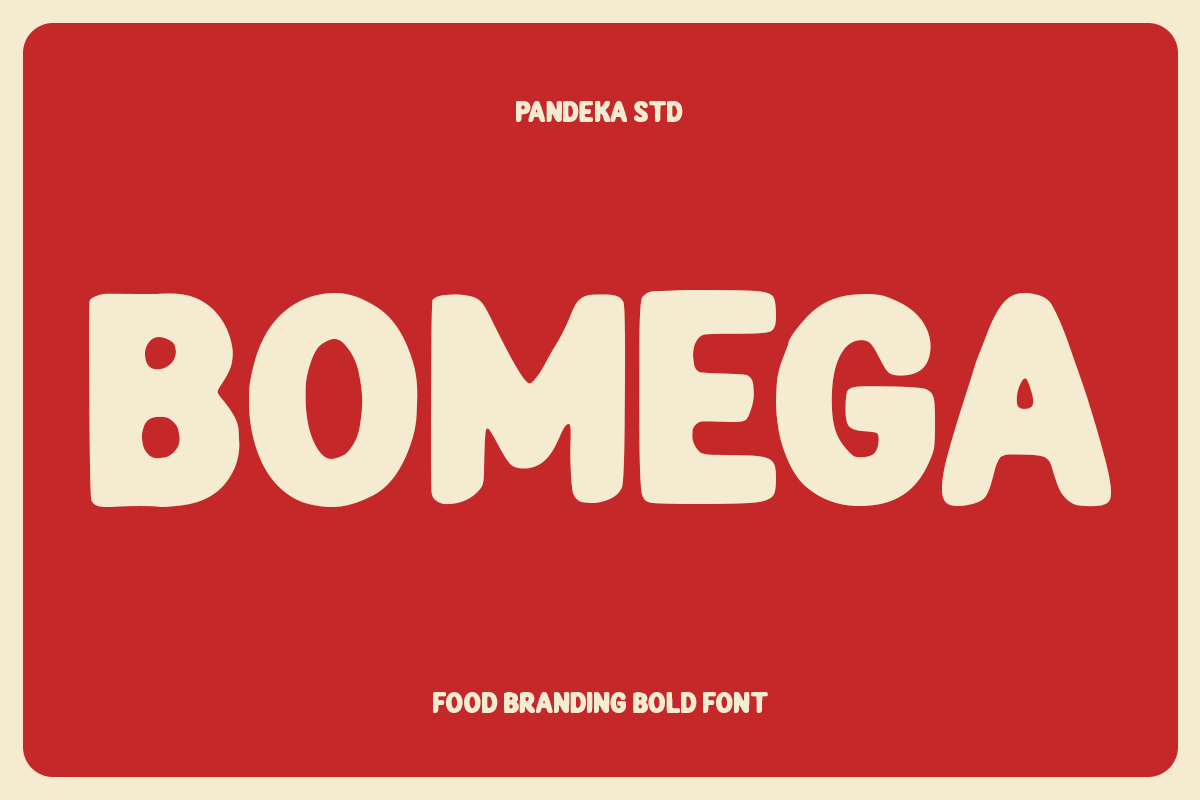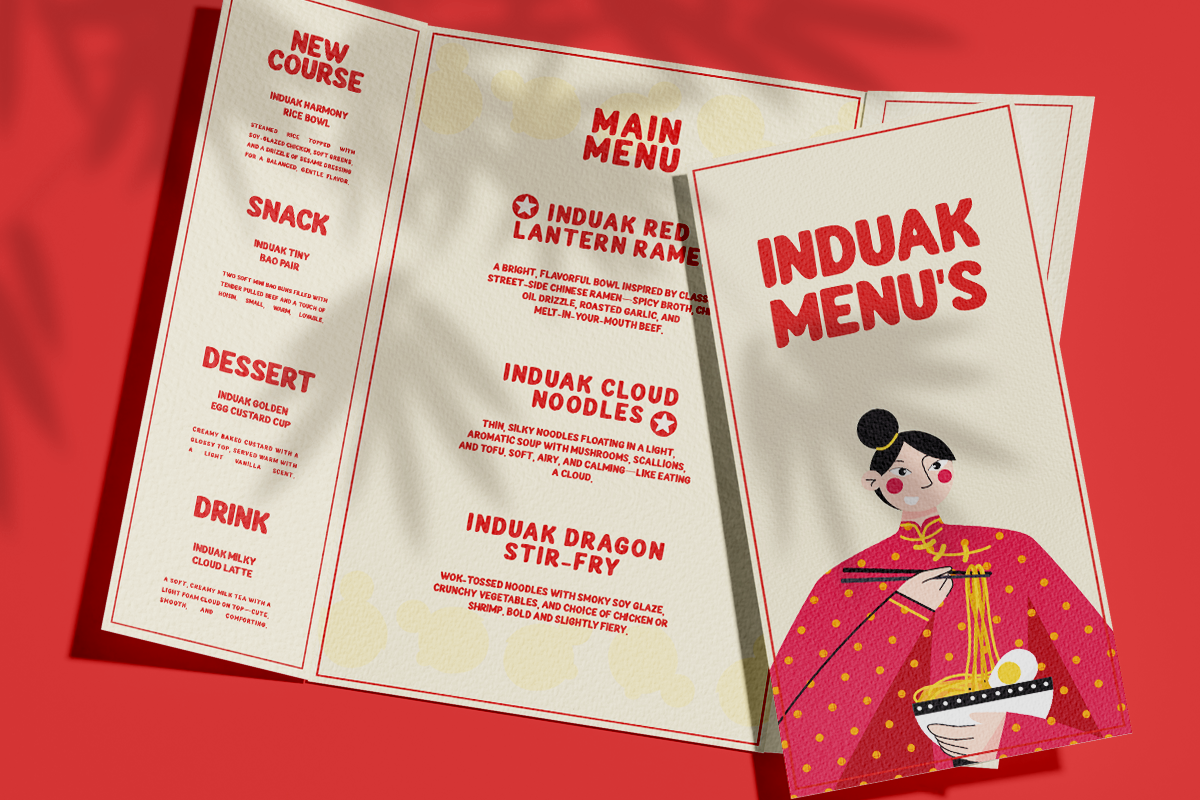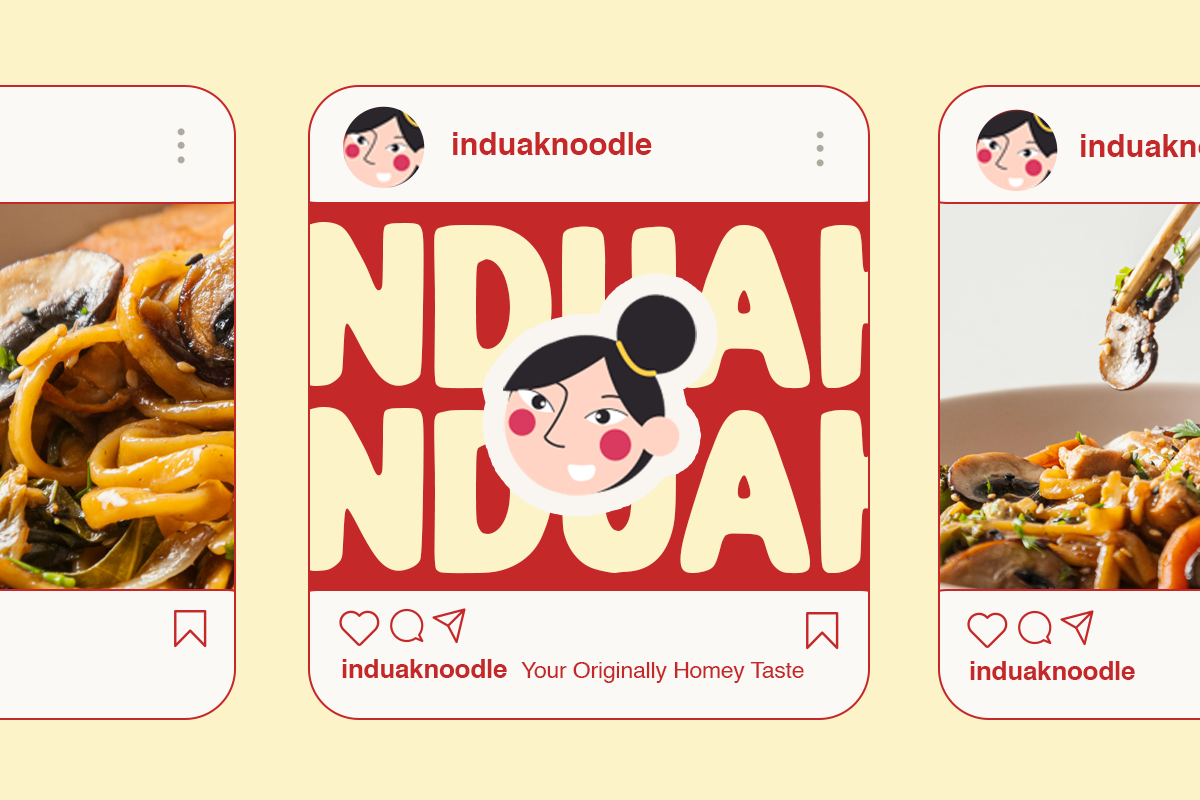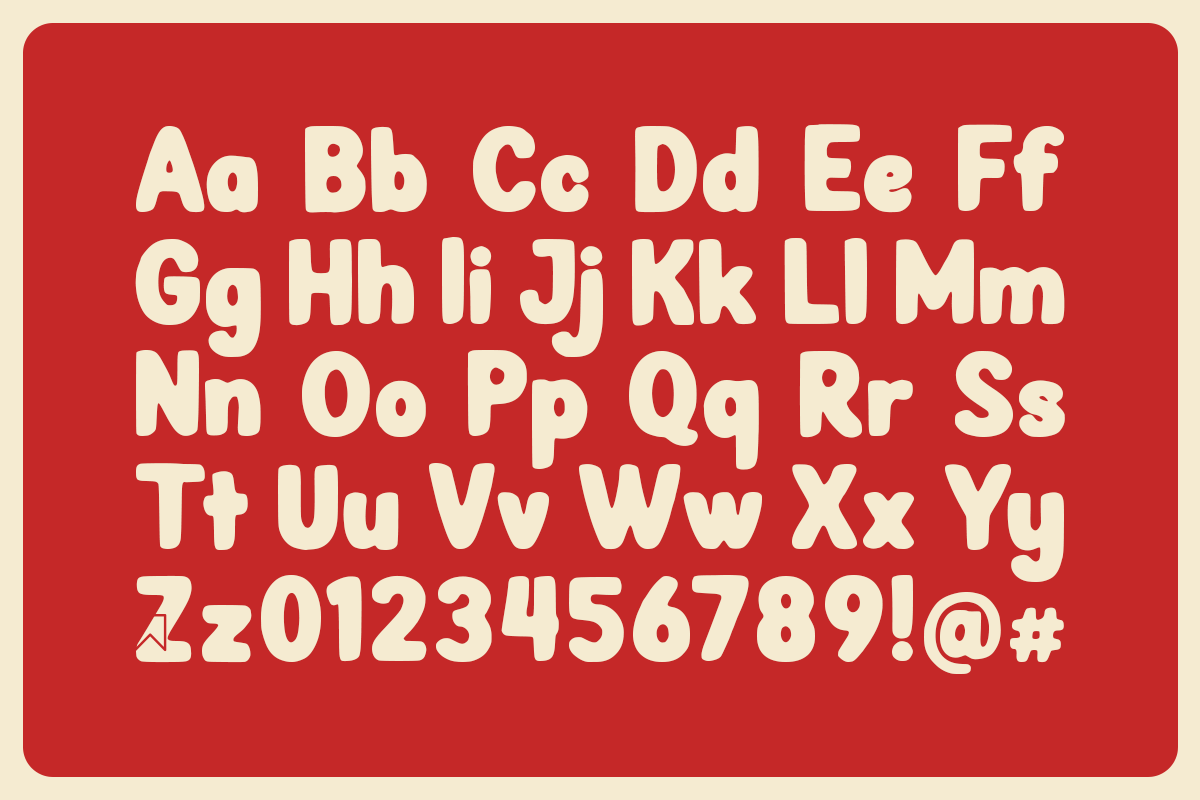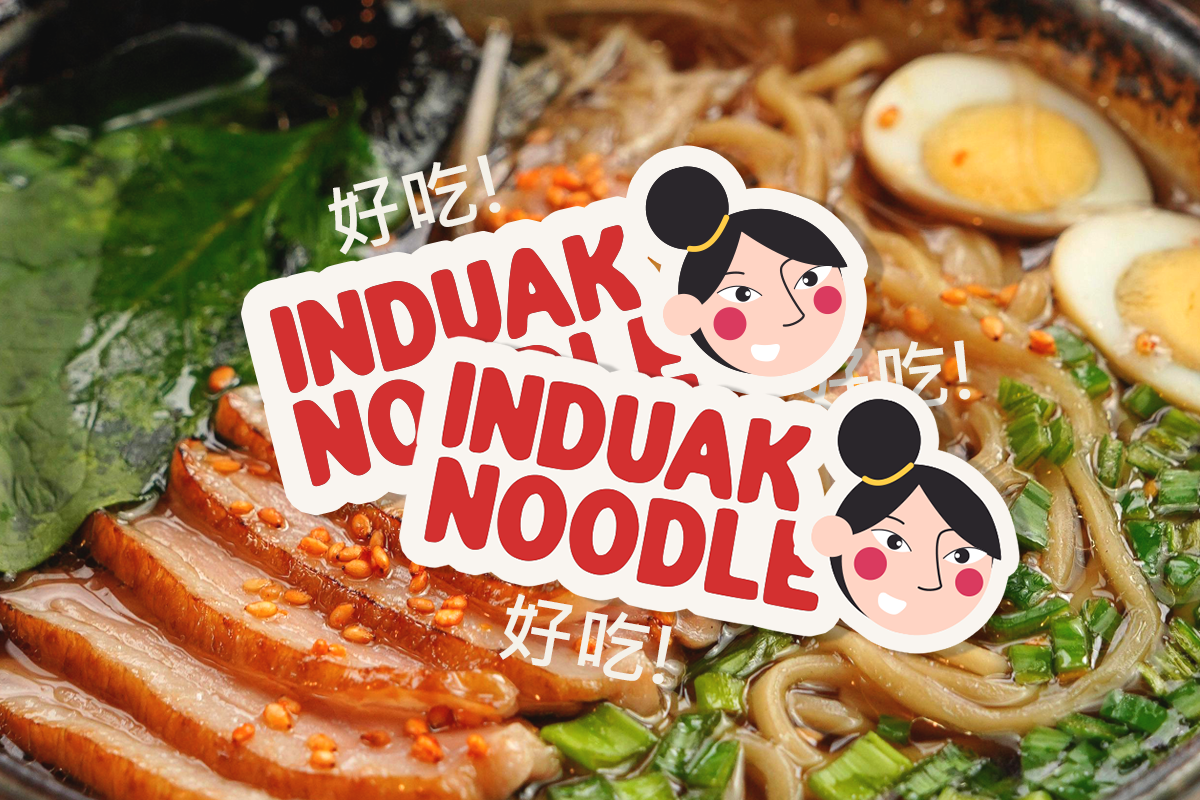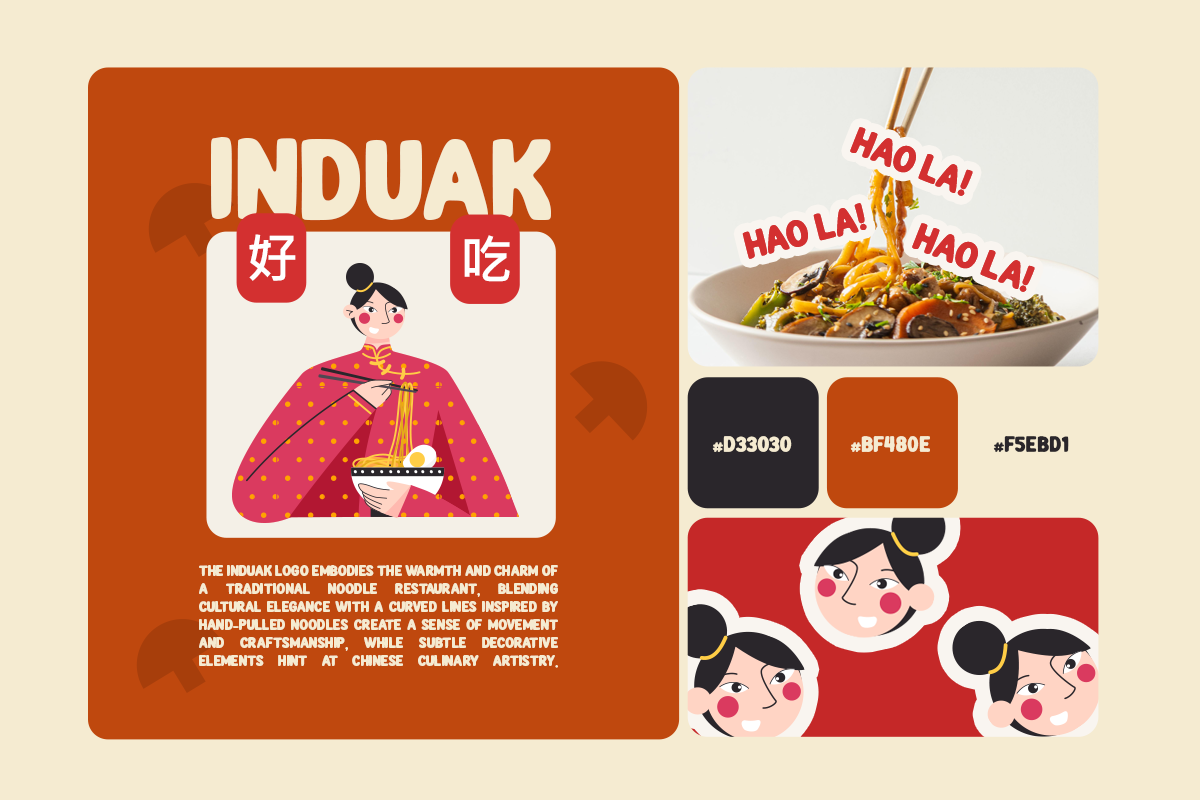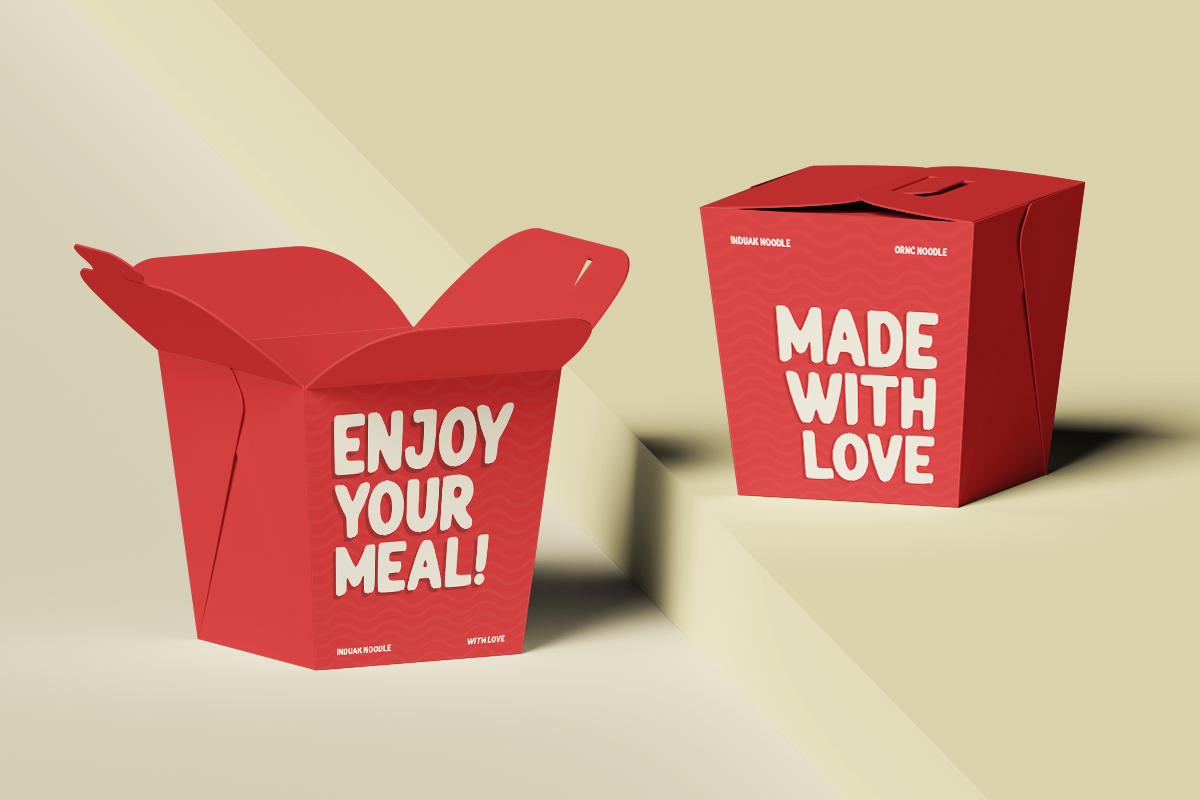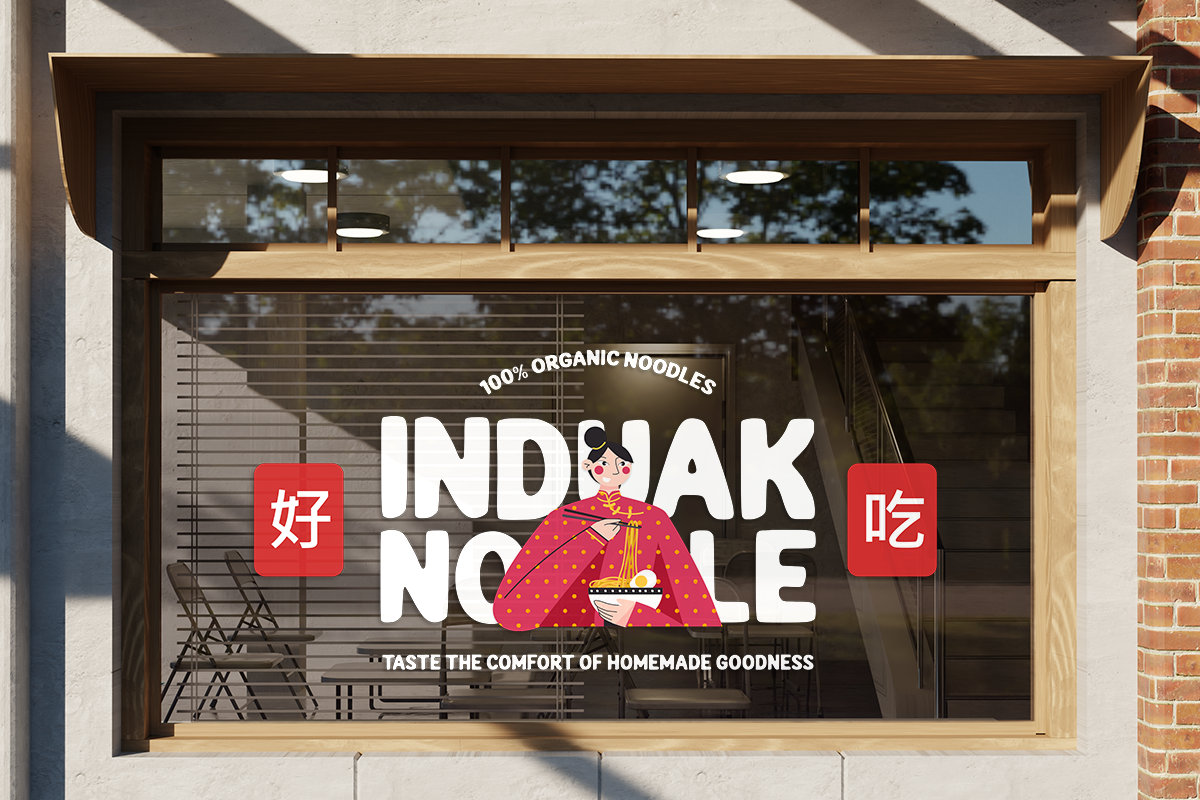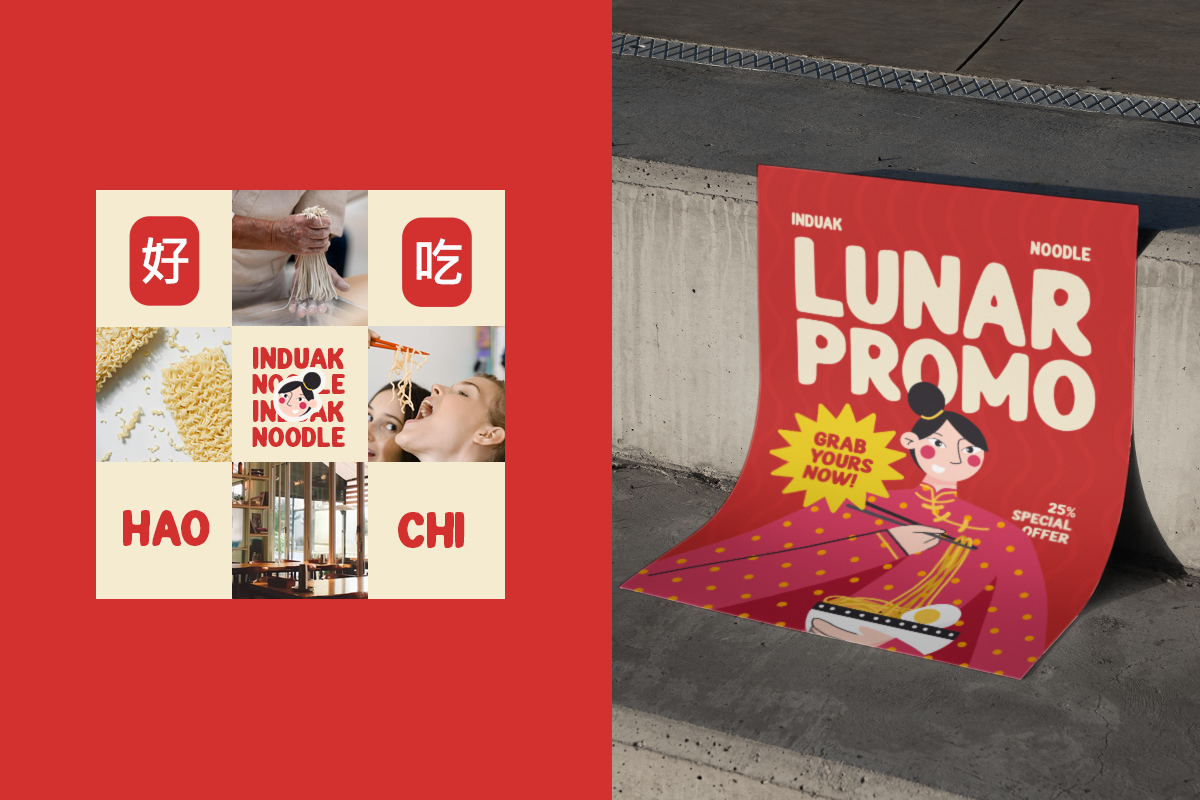
Bomega - Food Branding Bold Font
Bomega is a bold and playful display font designed especially for food branding, restaurant identities, packaging, menus, and eye-catching promotional materials. Its rounded bold shapes and friendly character style create an inviting and energetic look — perfect for noodle shops, street food brands, snack packaging, and fun food-related campaigns.
Built in a single Regular style, Bomega includes uppercase, lowercase, numerals, and punctuation, giving you all the essentials for impactful branding. With its cheerful weight and approachable personality, Bomega brings flavor, warmth, and bold visual charm to any food-focused design.
- Full Character Set: Uppercase, lowercase, numbers, symbols, and punctuation